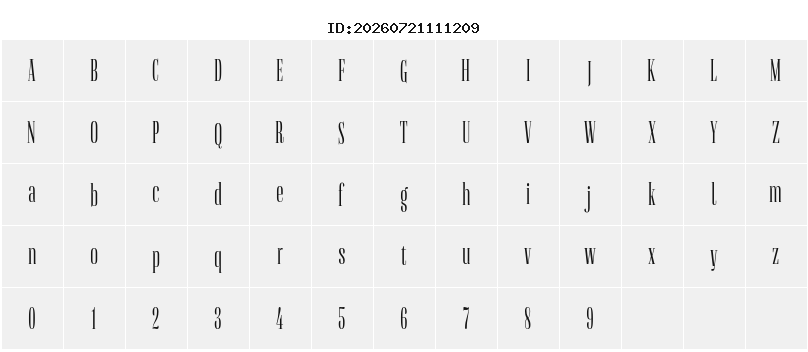
Flenja Preview
• Font Name: Flenja
• Designer: Sascha Timplan
• Manufacturer: Stereotypes
About Flenja.otf
Flenja.otf is a modern, elegant sans-serif font designed for ultimate readability and visual harmony. Perfect for branding, headlines, web design, and print materials.